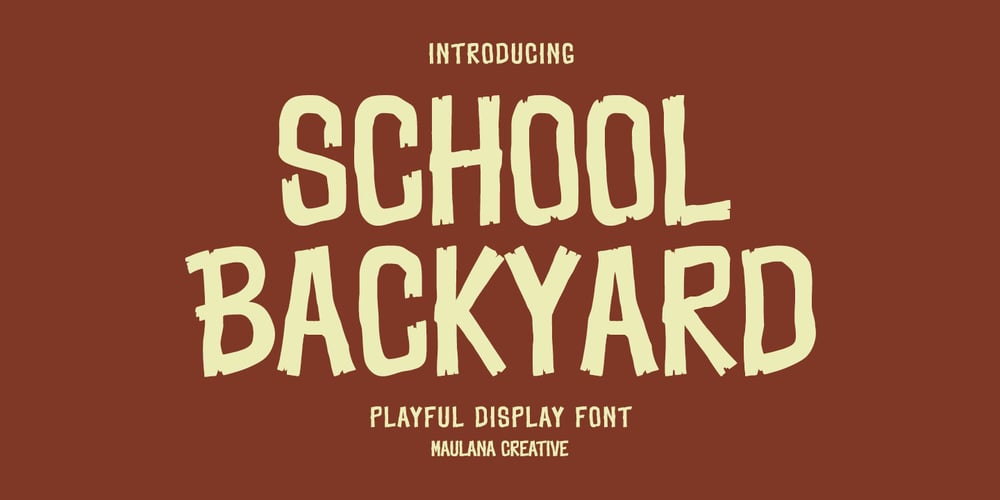
Maye Calistial Font Family was designed by Gilang Maulana and published by Maulana Creative. Maye Calistial contains 1 styles and family package options. School Backyard playful display font. Regular stroke, fun character with a bit of ligatures and alternates. To give you an extra creative work. School Backyard font support multilingual more than 100+ language. This font is good for logo design, Social media, Movie Titles, Books Titles, a short text even a long text letter and good for your secondary text font with script or serif. Make a stunning work with School Backyard font. Cheers, Maulana Creative